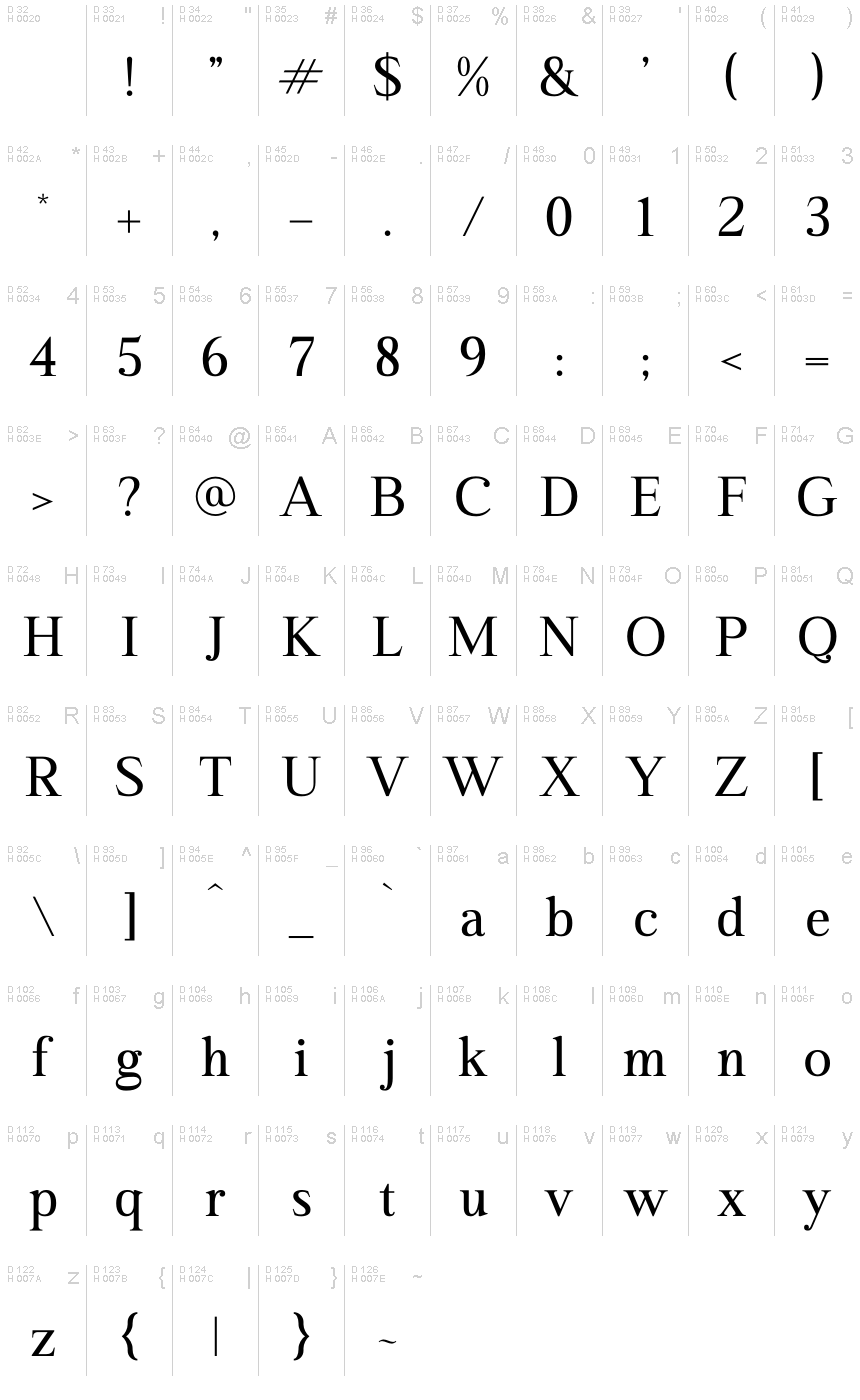
Heartfield
Heartfield font, designed by Storytype Studio, exudes elegance with its distinctive serif style that captivates at first glance. This font features a charming interplay of formality and warmth, thanks to its gracefully extended strokes and vivacious curves. The letters evoke an inviting character while maintaining an air of sophistication.
Visually striking, Heartfield lends itself beautifully to both headlines and body text, making it versatile for various design projects. Its expressive profile suits romantic invitations, high-end branding, and polished editorial layouts. Whether enhancing a luxurious magazine spread or adding flair to personal correspondence, Heartfield ensures that every word stands out with refined charm. This font masterfully balances aesthetic appeal with functional versatility, making it an ideal choice for creative endeavors seeking a touch of distinction.